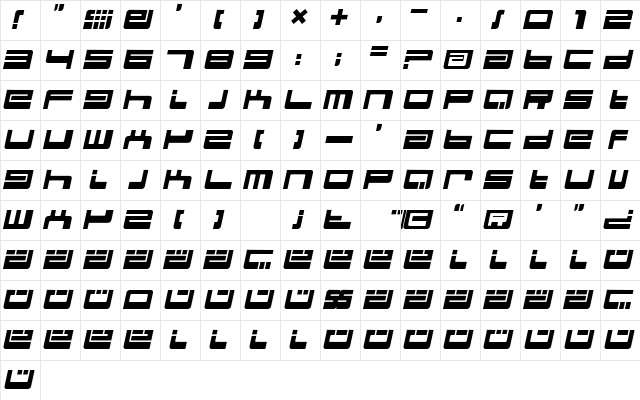
BDEject Italic
Design Context for BDEject
BDEject is a composed and adaptable typeface that performs quietly and consistently across a wide range of design contexts. The slanted form adds forward momentum and visual energy.